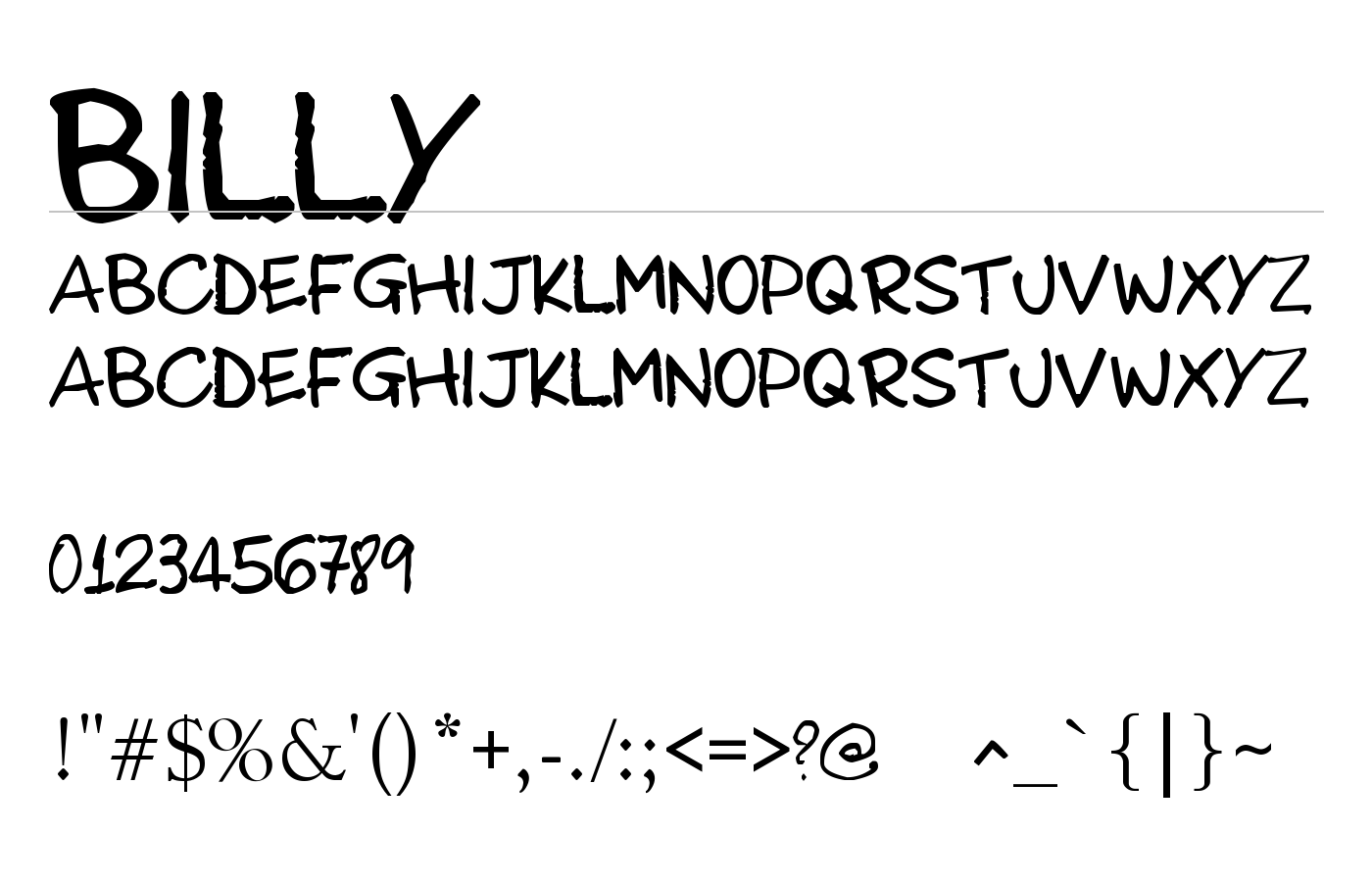
Billy Font is a casual, playful sans serif typeface with a hand-drawn, slightly irregular style that brings a friendly and approachable feel to any design. Its medium weight and moderately tall x-height make it highly readable while retaining a personal, informal charm, perfect for creative projects, children’s materials, or branding that aims for warmth and individuality. This font shines in headlines, posters, and digital content where a lively, authentic voice is desired.
Billy Font